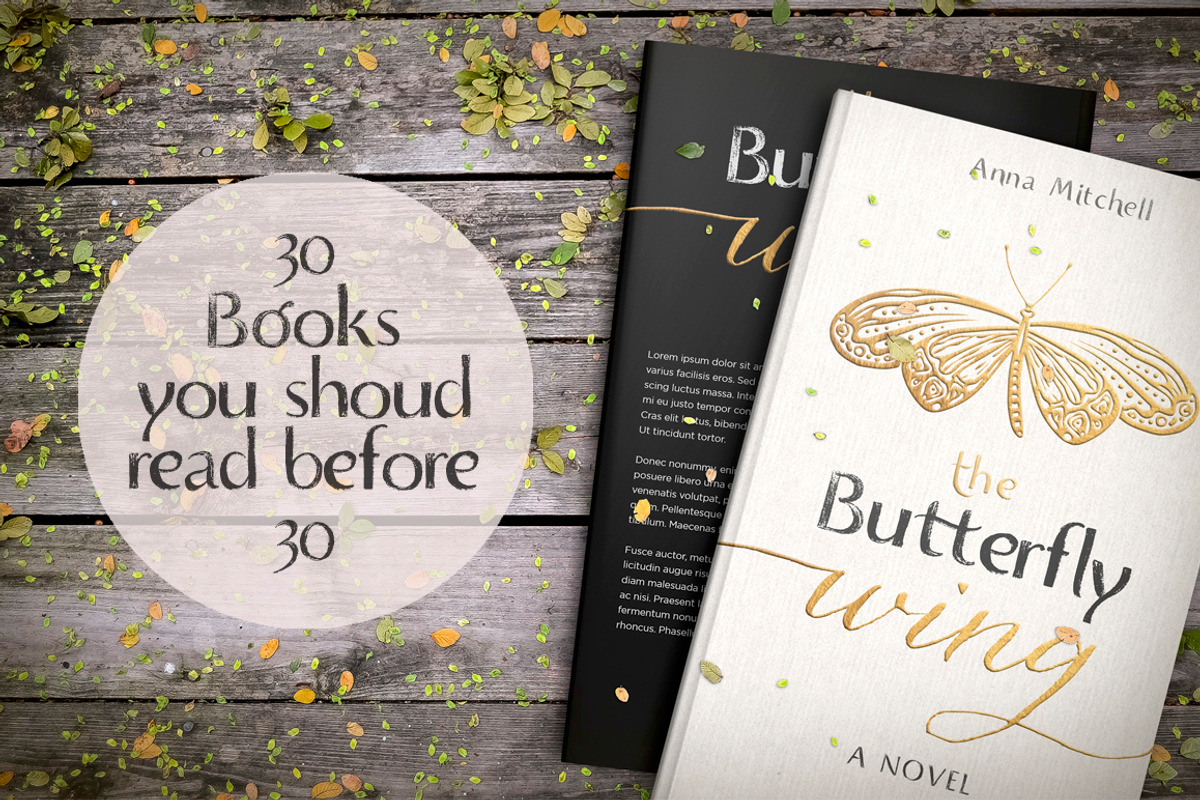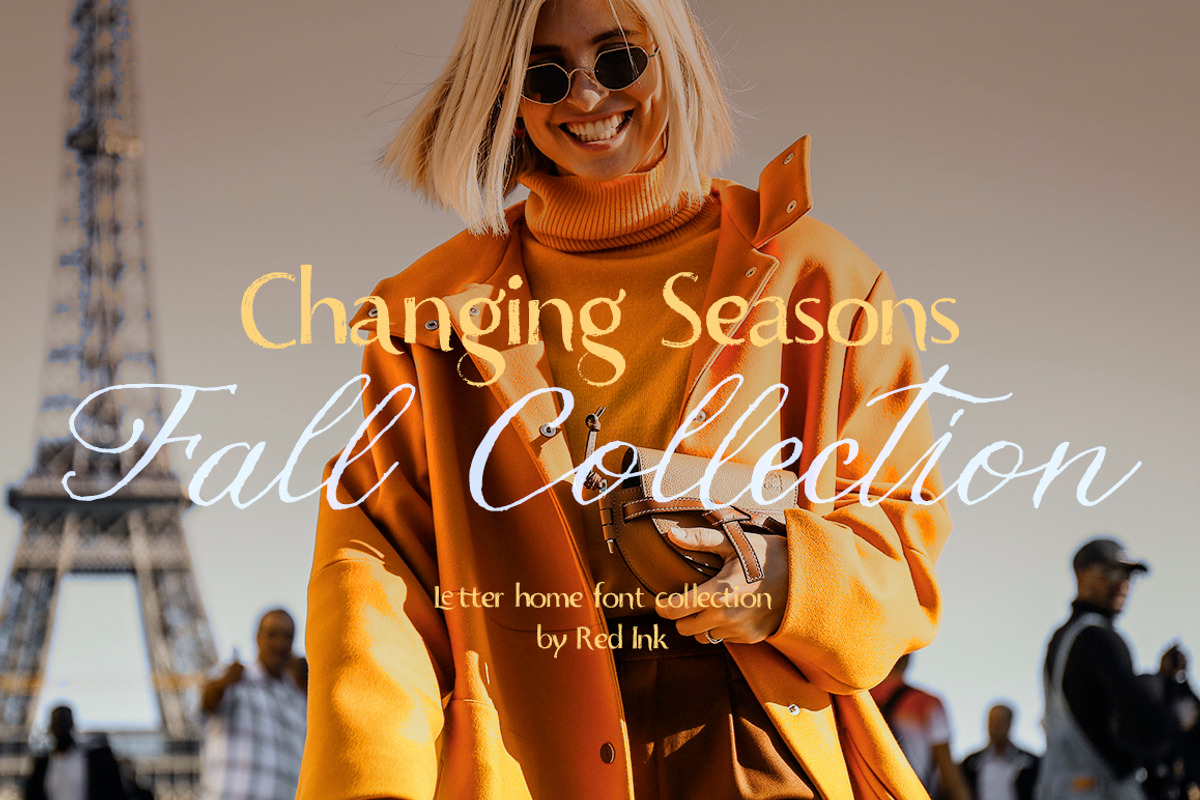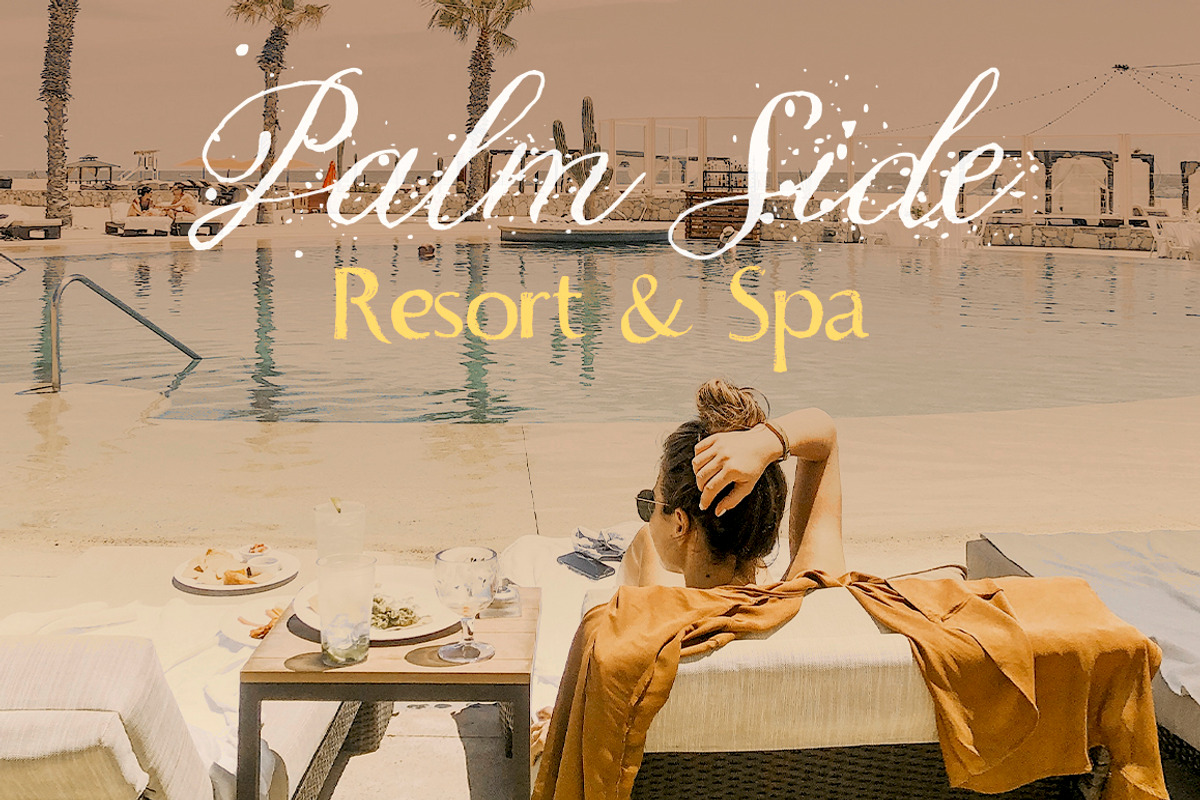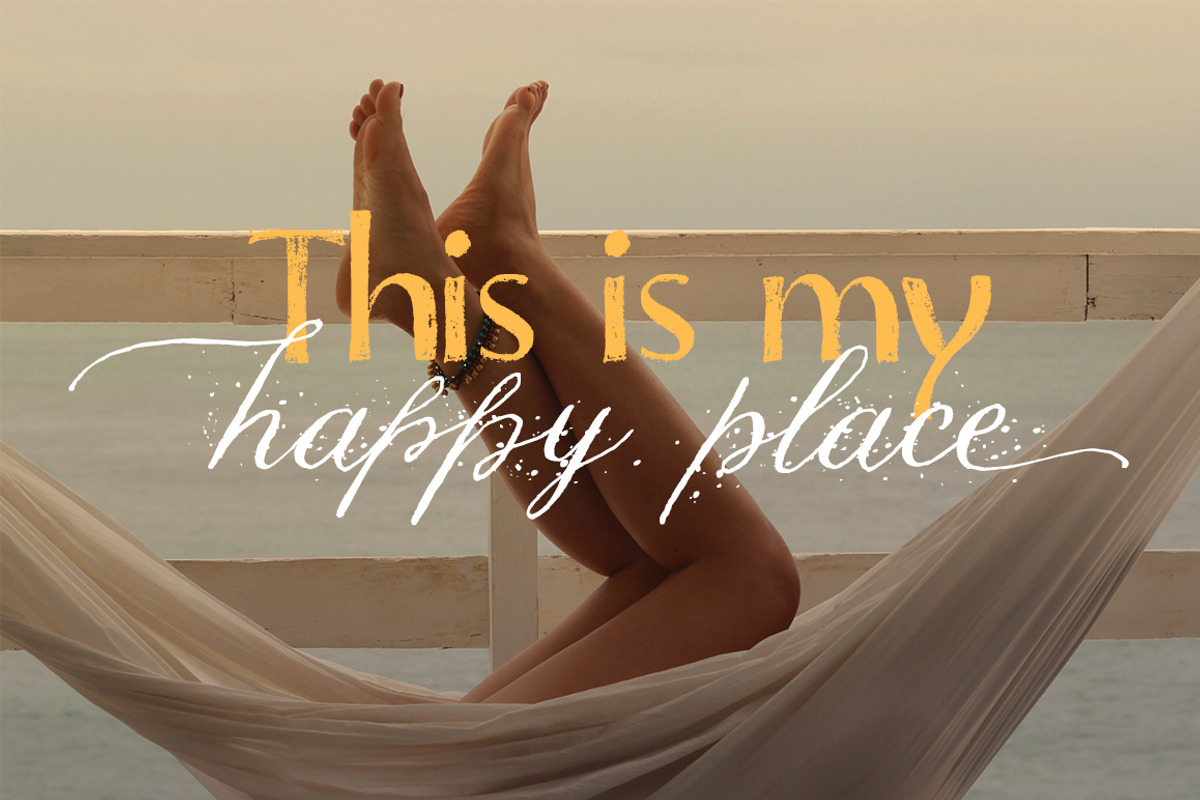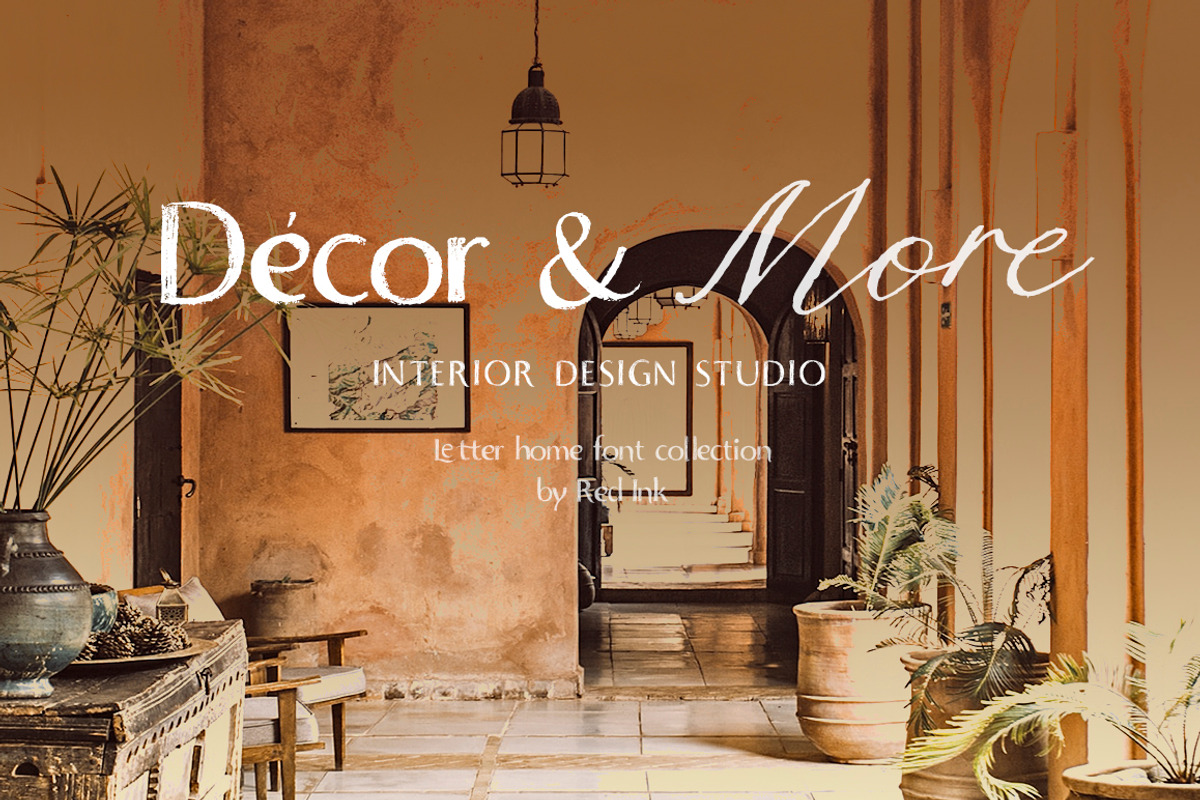
Letter Home. Font Trio + Graphics.
Letter Home is a beautiful hand drawn font collection of two Script fonts and Sans Serif font. Modern, expressive; perfectly combined typographic harmony is perfect for posters, greeting cards, t-shits, branding materials, quotes and any other amazing projects you are working on. Each font can be used separately. In conjunction they give a sense of lightness and delicacy and a little vintage feel. -- That’s not all!!! You’ll also get some 15 Bonus illustrations for your design ideas, logo or branding.
Letter Home script fonts have many Open type features include tons of ligatures, initial and final letters for all lowercase glyphs and additional letters for all alphabet. Both script fonts include true ink pen texture, one of them also include ink splashes. Sans Serif font was also created in order to repeat the peculiarities of hand-drawing, with saving hand drawn pencil texture, and some special letter combinations.